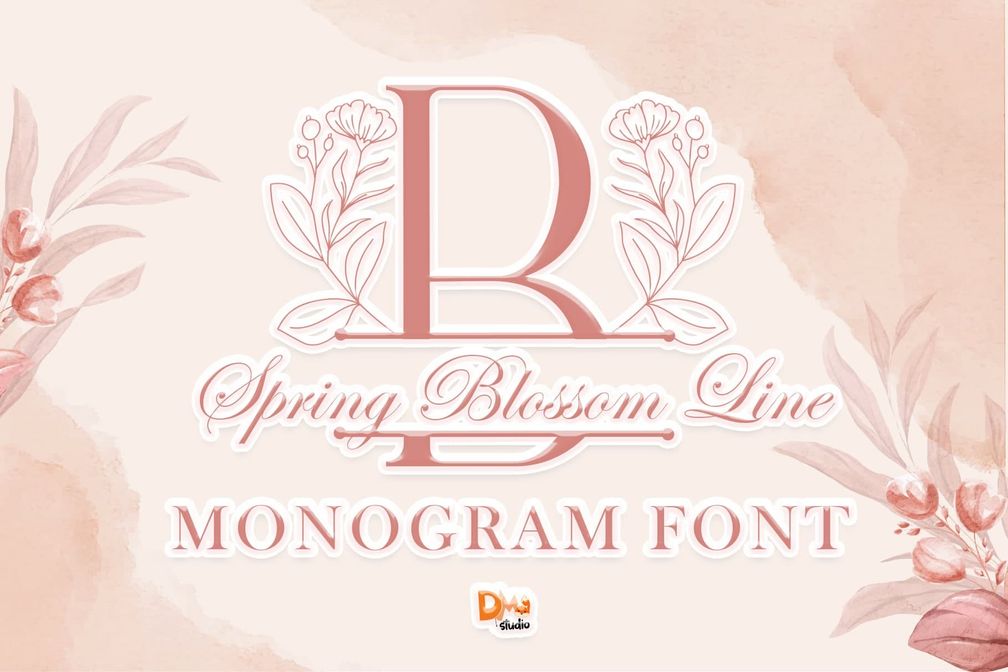
Spring Blossom Line Monogram
Spring Blossom Line Monogram – Elegant & Floral Monogram Font
Spring Blossom Line Monogram is a refined monogram font featuring delicate floral line art inspired by the beauty of spring. This elegant typeface is perfect for wedding invitations, luxury branding, personalized stationery, boutique packaging, and artistic monogram designs. With its graceful botanical flourishes, this font adds a touch of sophistication and charm to any project.
• Floral Line Art Design: Each letter is adorned with delicate spring blossom details for a natural and elegant look.
• Minimalist & Ornamental Aesthetic: A seamless blend of floral beauty and sophisticated monogram styling.